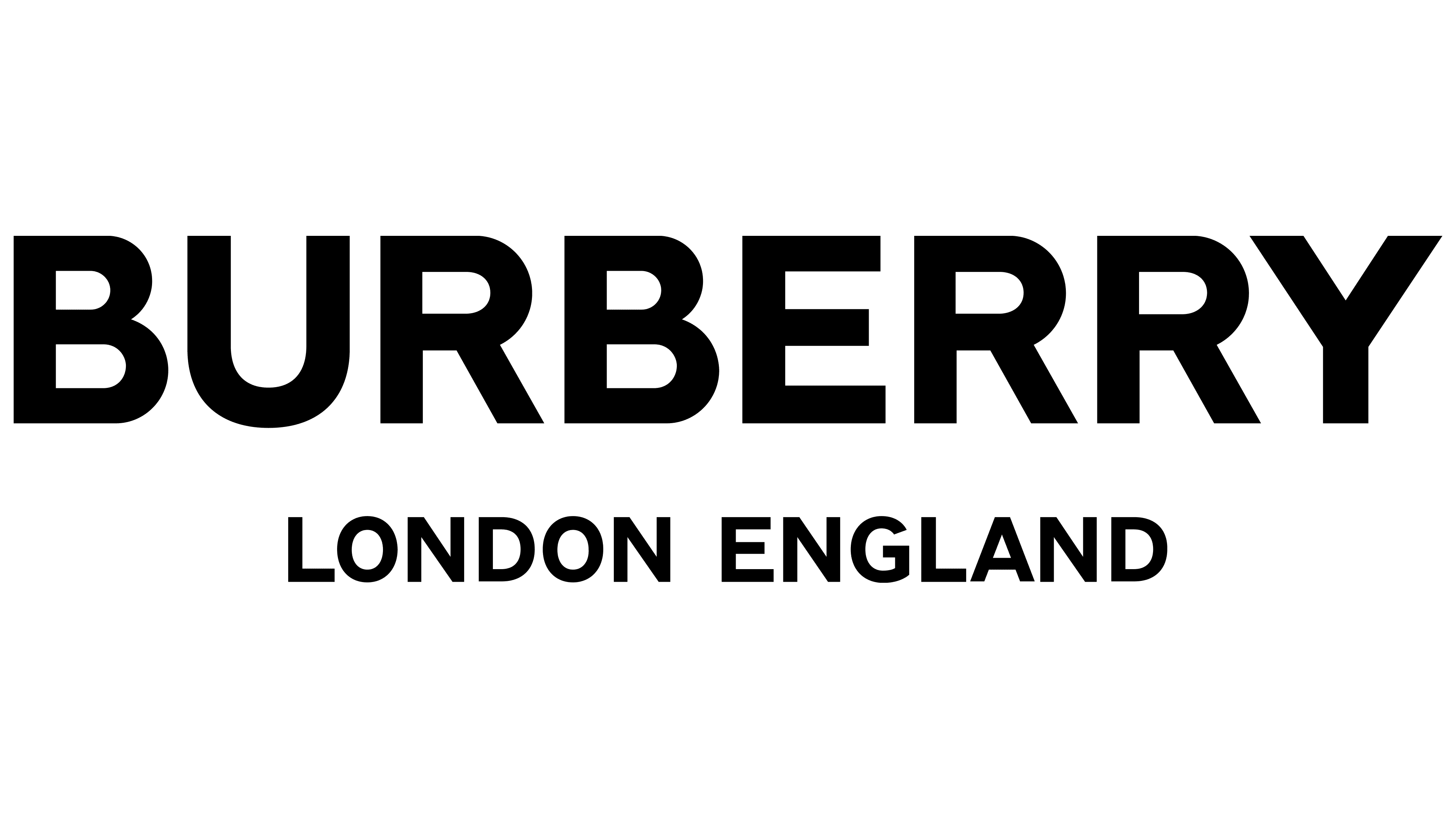
Famous Burberry Logo Font References
Designed by peter saville, the new logo heralded the new dawn of the company under the new head of the. Web the burberry logo embodies an equestrian carrying a shield. Web according to the chief creative officer's emails, the design as inspired by a logo from 1908 and a thomas burberry monogram that he found in the archives.
Burberry Is A British Luxury Fashion House, Distributing Exclusive Luxury Sportswear, Fashion.
While the shield depicts protection, the equestrian is a symbol of pride, purity and grandeur. Font generator ( ͡° ͜ʖ ͡°) designers; Proxima nova is the primary font used for.
The Riccardo Tisci Era At Burberry Is Kicking Into High Gear.
Web by matt sebra. Web burberry the burberry logo is a bespoke expanded version of bodoni, a modern serif style that conveys high quality and luxury. There is a version with a knight, and.
Web Burberry Introduced A New Monogram And Logo In 2018.